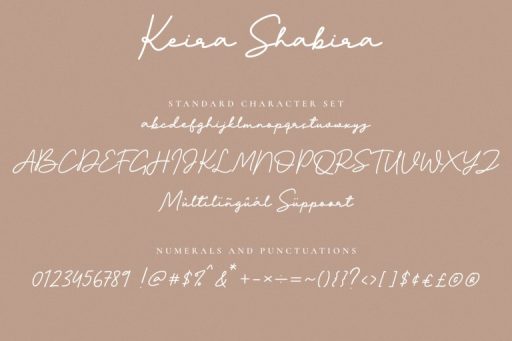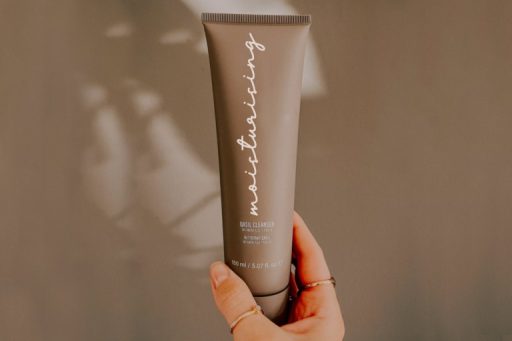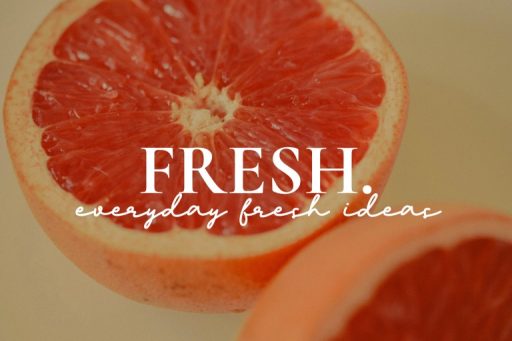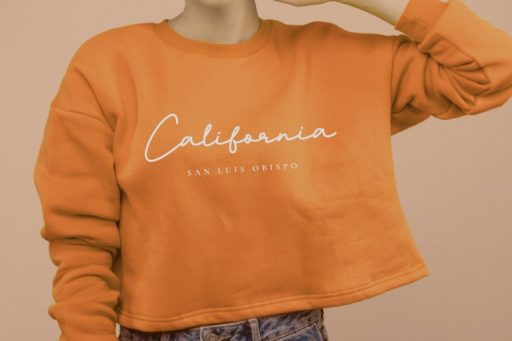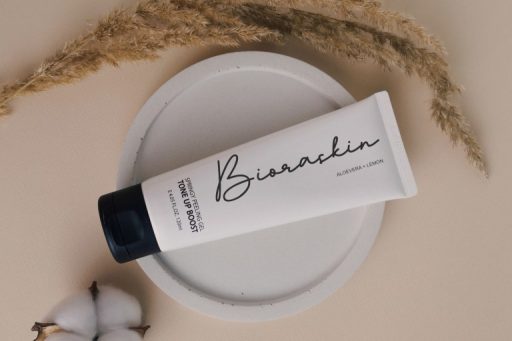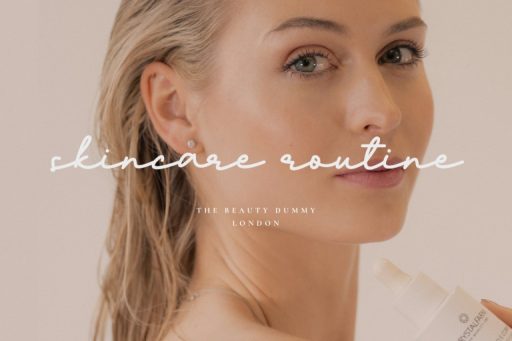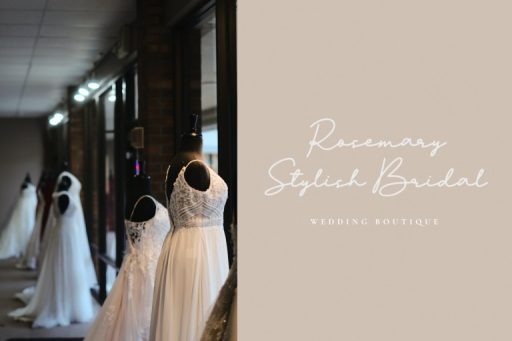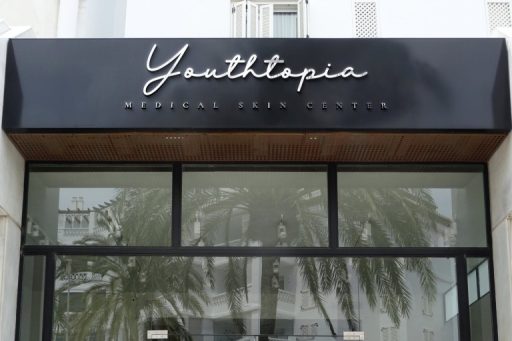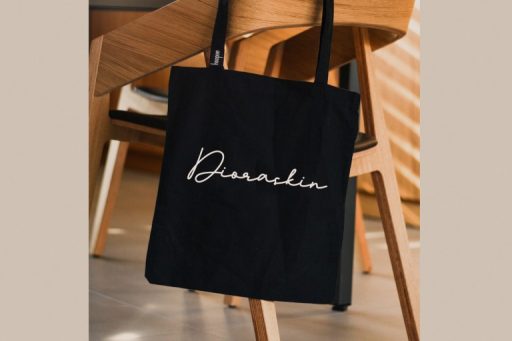
Keira Shabira Font
Keira Shabira – Signature Business Font
Keira Shabira is an elongated signature script font that is perfect for earthy branding and design. Great for logos, posters, magazines, quotes, websites, and much more!
• Multilingual Support